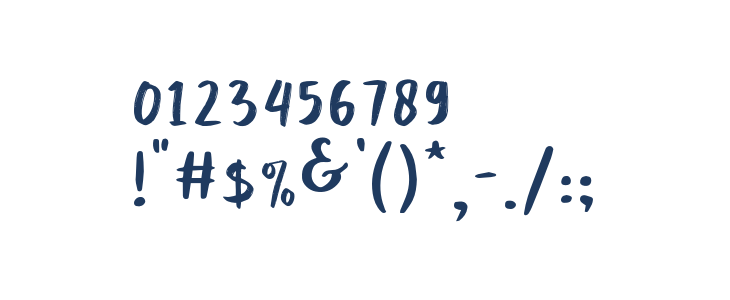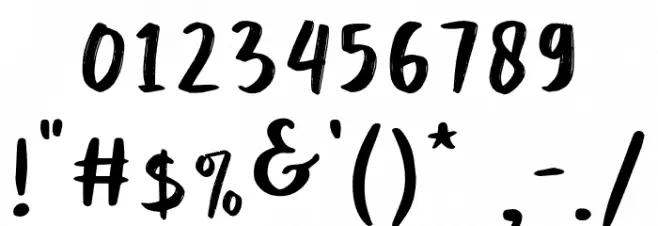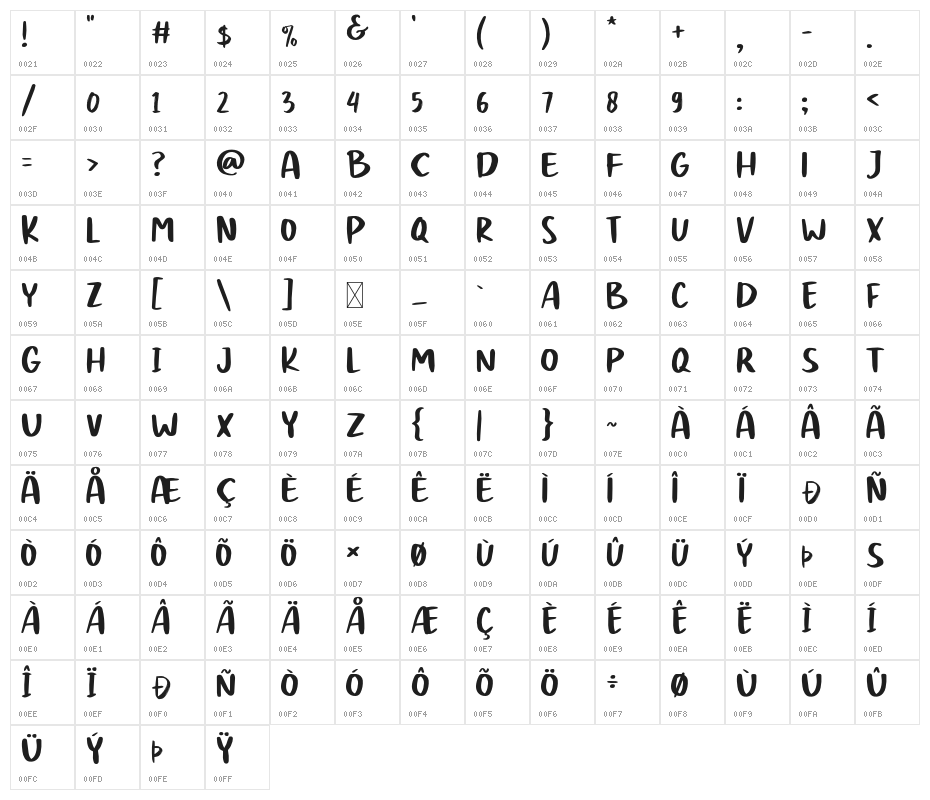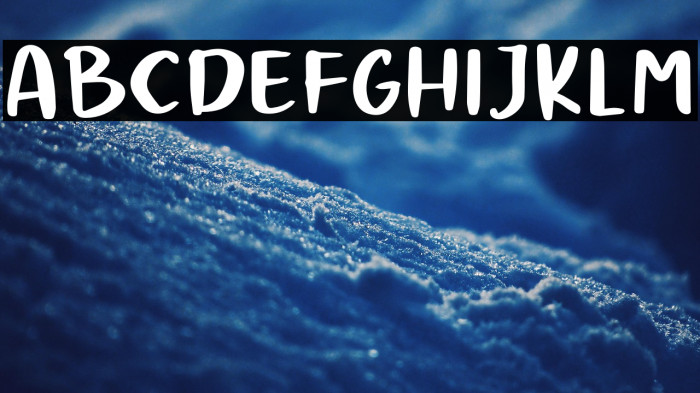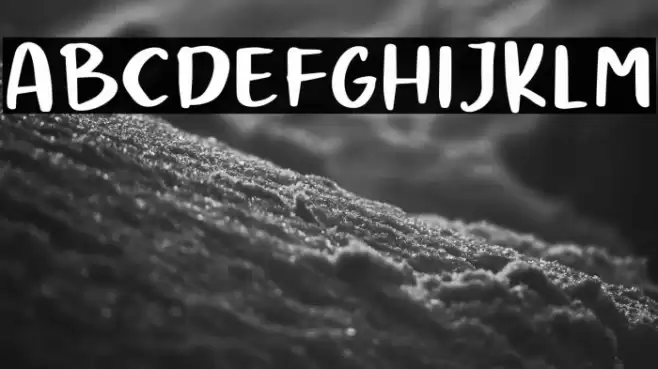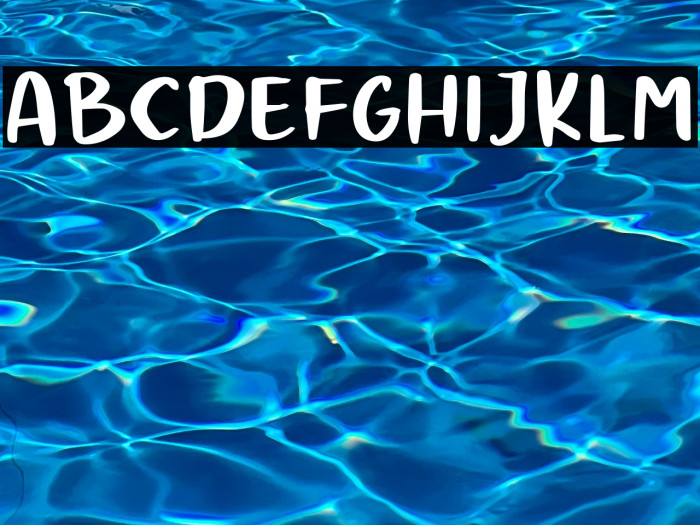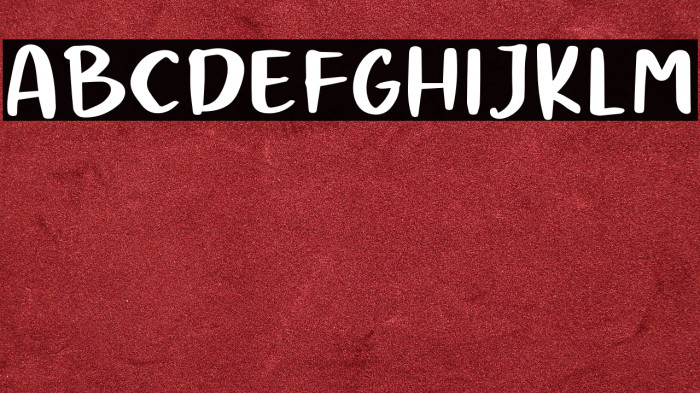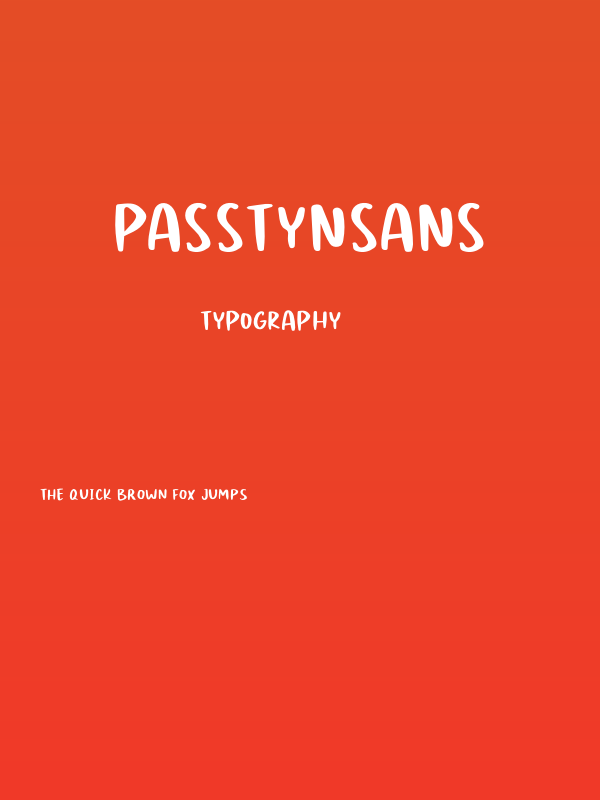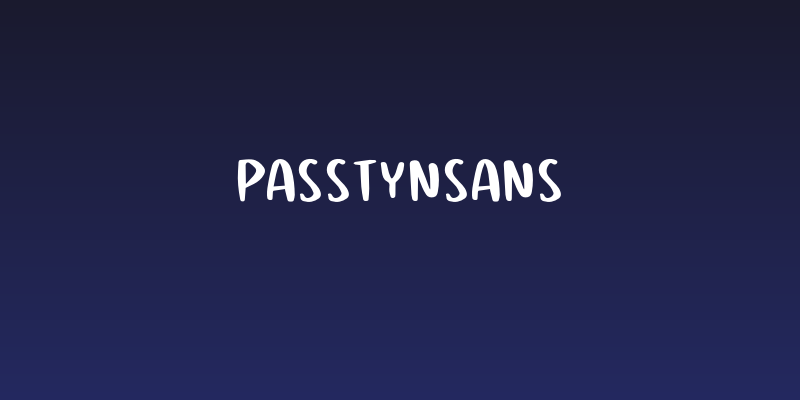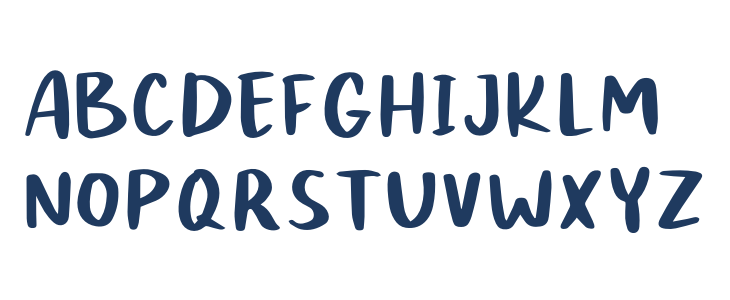
PasstynSans Font
PasstynSans Description
This font features a bold, handwritten style with a playful and casual appearance. The characters are slightly irregular, adding a personal touch that mimics natural handwriting. The strokes are thick and consistent, providing a strong visual impact. The uppercase and lowercase letters maintain a cohesive look, while the numerals and special characters blend seamlessly into the overall design. This font's informal style makes it ideal for projects that require a friendly and approachable feel.